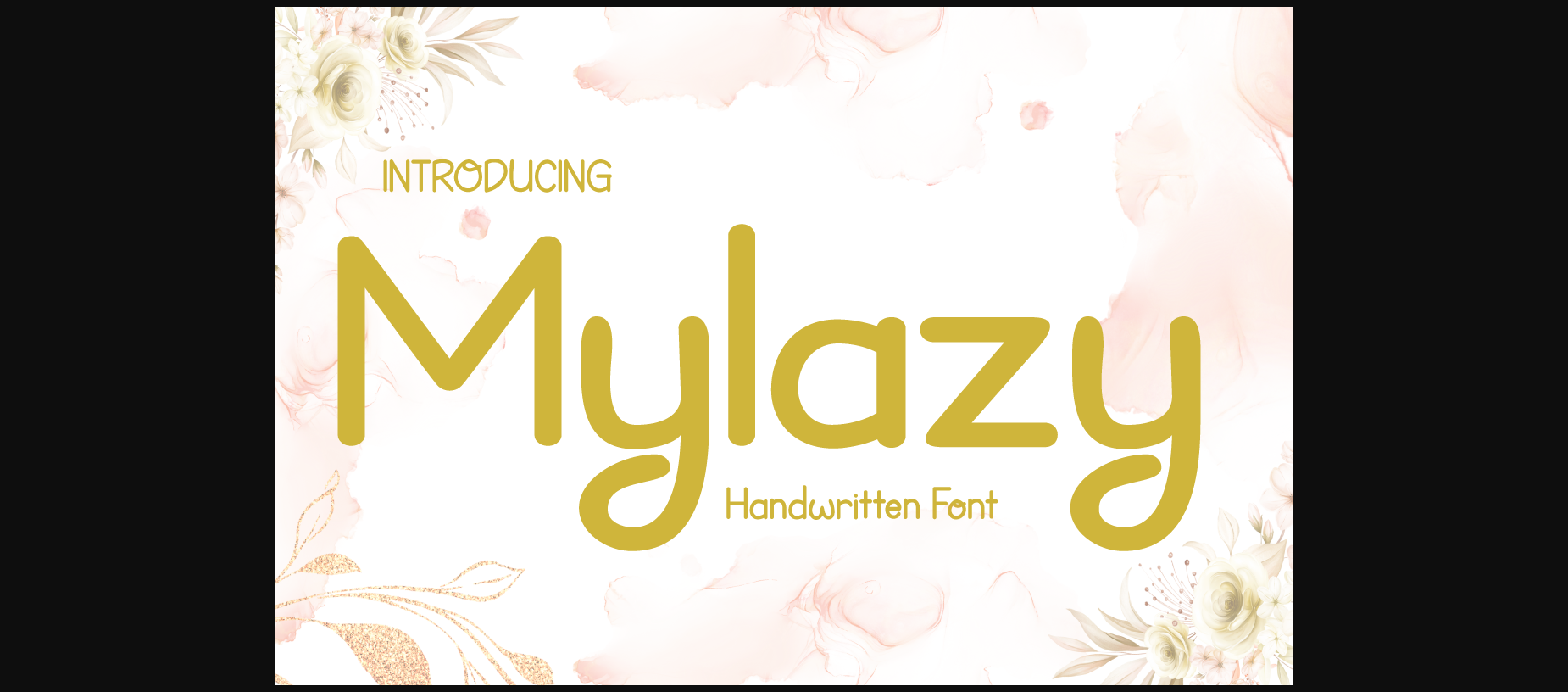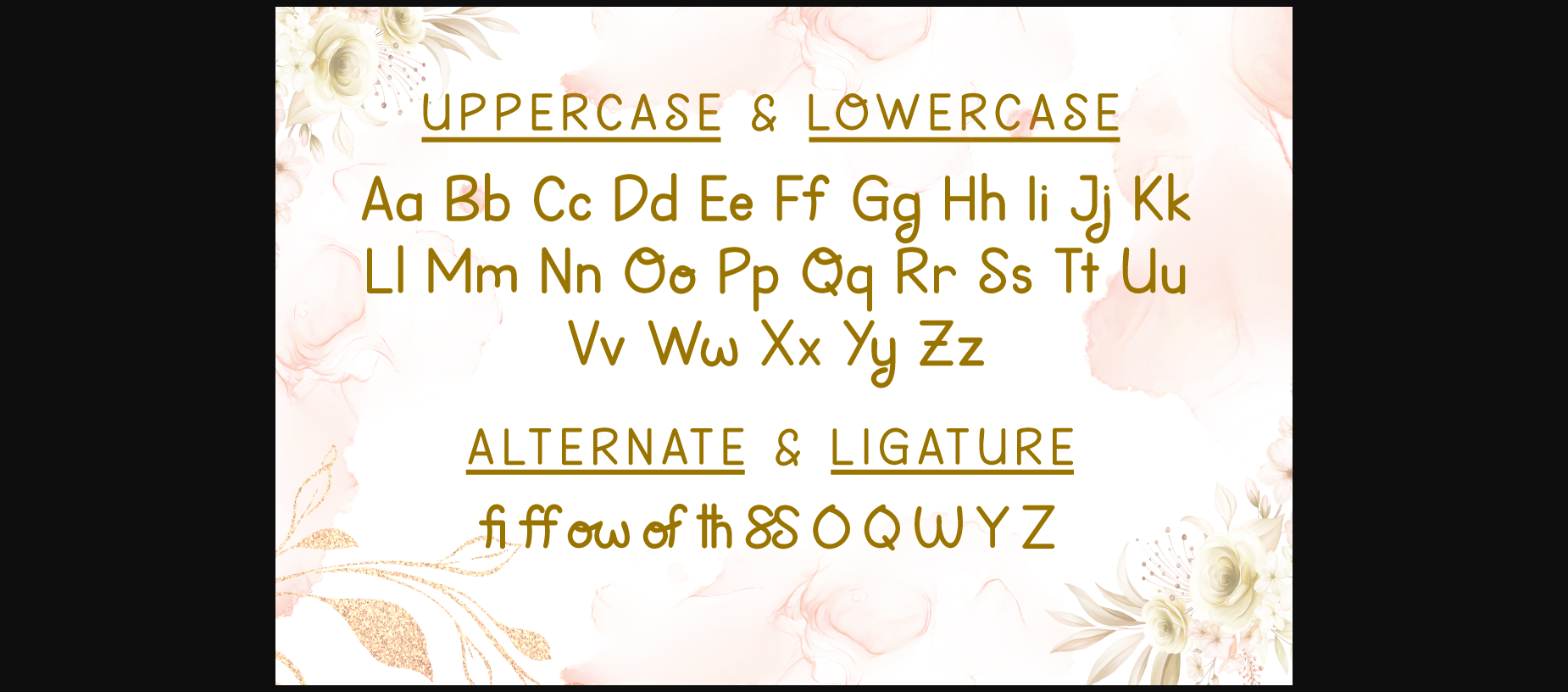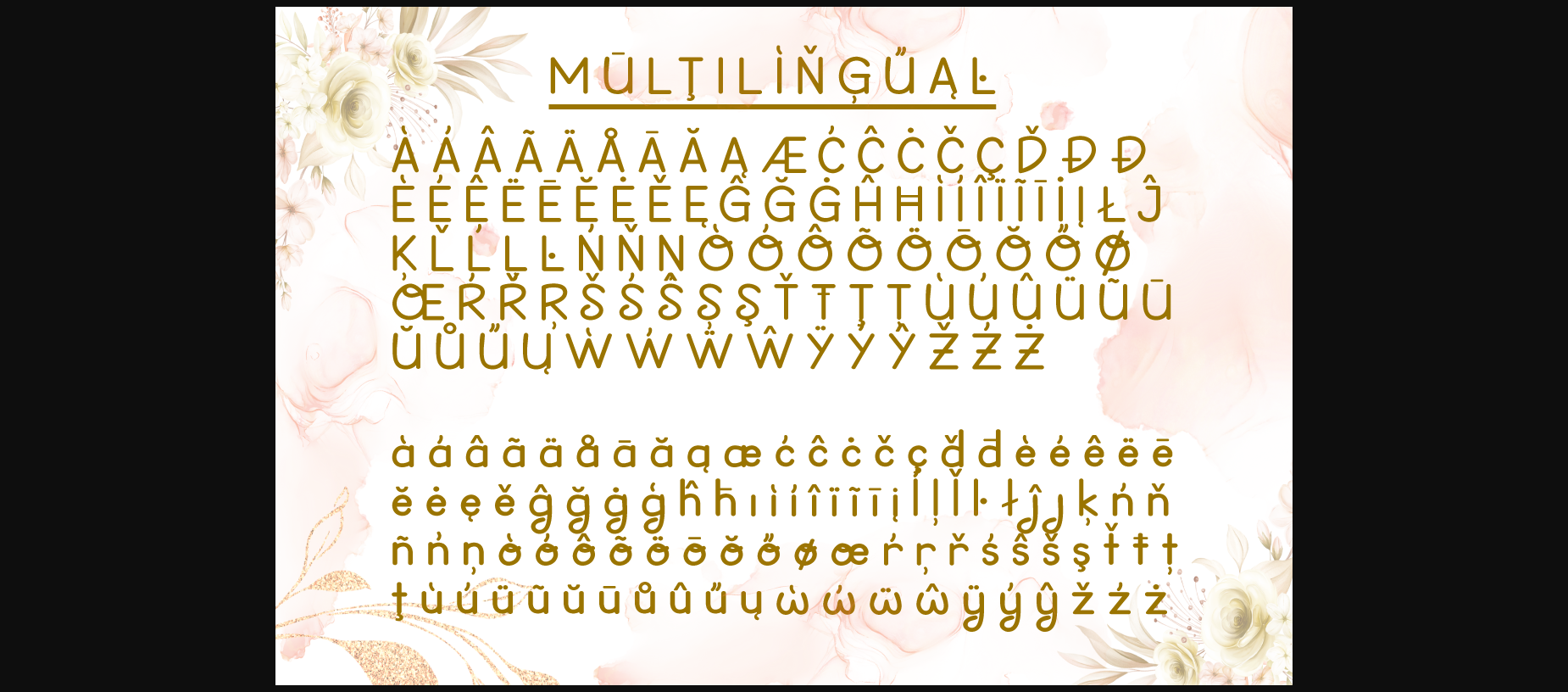
About Mylazy Font
Introducing Mylazy Font – the quintessential display typeface that embodies the authentic art of handwriting! Crafted to infuse your projects with a genuine handwritten touch, Mylazy offers a creative solution for diverse design needs. Its effortless elegance adds a unique charm to invitations, notes, branding materials, and more. With ligatures and alternates, each character blends seamlessly, allowing for creative word formations. Moreover, Mylazy extends its impact across languages, ensuring global versatility. Elevate your designs with the distinctive allure of Mylazy Font and unlock the power of personalized expression. Explore Mylazy now to redefine your creative endeavors!